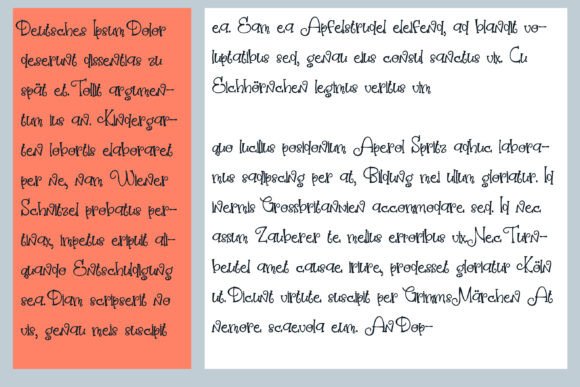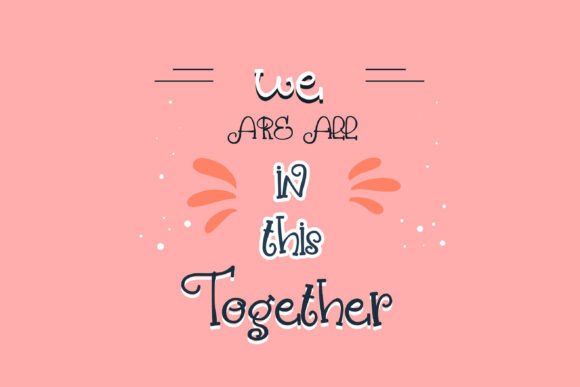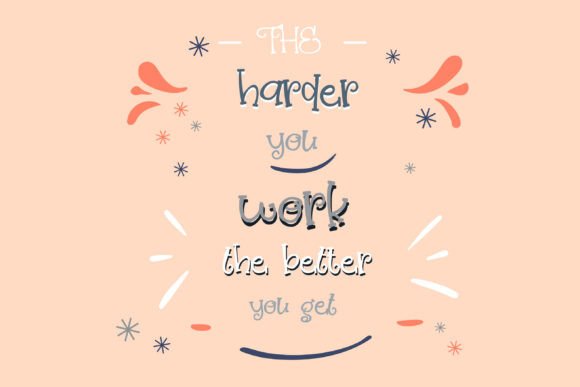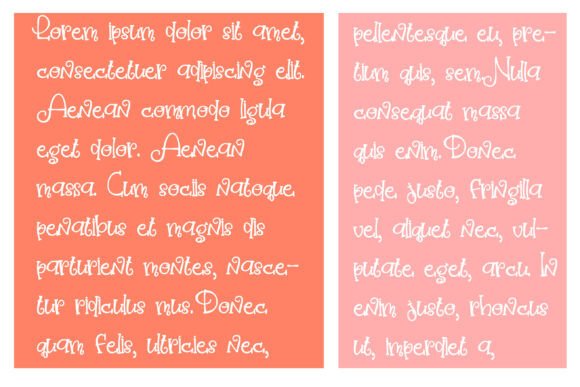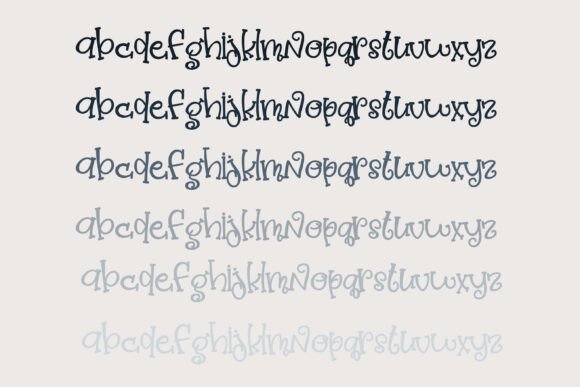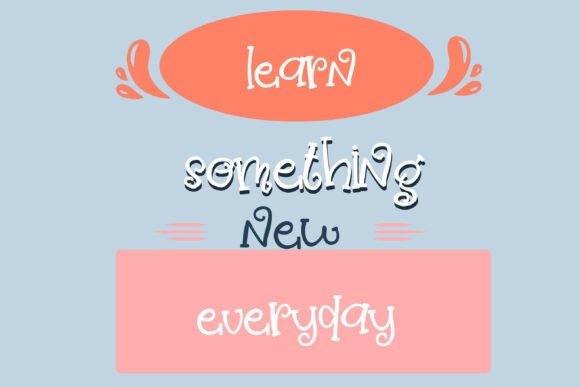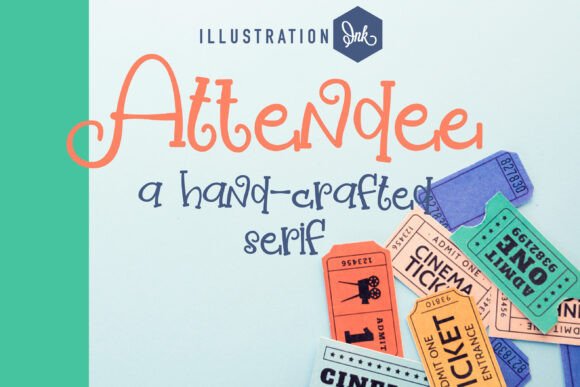
Introducing Attendee Font: A Whimsical Hand-Written Serif
Are you tired of using the same old fonts for your designs? Look no further than Attendee Font, a charming hand-crafted font that adds a touch of personality to any project. This whimsical hand-written serif font is perfect for designers and crafters who want to add a personal touch to their work.
A hand-crafted font is a font that is designed to look like it was written by hand. It is often used for invitations, greeting cards, and other items where a personal touch is desired. Handwritten fonts can be either formal or informal, and they can be used for a variety of purposes. They are perfect for adding a unique and creative element to your designs.
Features of Attendee Font
Attendee Font is a beautifully designed hand-crafted font that features a whimsical hand-written serif style. The font includes a few curls here and there, giving it a playful and charming feel. The font comes in two versions: a regular version and a light version, allowing you to choose the perfect weight for your design.
Uses of Attendee Font
Attendee Font is a versatile font that can be used for a variety of purposes. Here are a few ideas:
- Invitations: Use Attendee Font to create beautiful and unique invitations for weddings, birthday parties, and other special events.
- Greeting Cards: Add a personal touch to your greeting cards with Attendee Font. It’s perfect for creating handmade cards for special occasions.
- Signage: Use Attendee Font to create eye-catching signage for events, businesses, and organizations.
- Digital Designs: Attendee Font is perfect for digital designs, such as social media graphics, blog posts, and email newsletters.
Benefits of Using Hand-Crafted Fonts
Using hand-crafted fonts like Attendee Font offers a number of benefits, including:
- Uniqueness: Hand-crafted fonts are unique and can help your designs stand out from the crowd.
- Personality: Hand-crafted fonts can add a personal touch to your designs, making them more relatable and engaging.
- Flexibility: Hand-crafted fonts can be used for a variety of purposes, from formal to informal designs.
Tips for Using Attendee Font
Here are a few tips for using Attendee Font:
- Use it sparingly: Attendee Font is a decorative font, so use it sparingly to add emphasis to your designs.
- Pair it with other fonts: Pair Attendee Font with other fonts to create a unique and interesting combination.
Attendee Font is a beautiful and versatile hand-crafted font that can add a touch of personality to any design. With its whimsical hand-written serif style and playful curls, it’s perfect for designers and crafters who want to create unique and engaging designs. Whether you’re creating invitations, greeting cards, or digital designs, Attendee Font is a great choice.